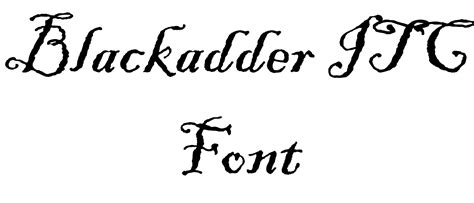
← back to family page. Itc blackadder is the work of british designer bob anderton, an eerie transformation of. Web individual styles 1 styles. Web about itc blackadder font family. Use the controls below to customize your text string and its. Itc blackadder is the work of british designer bob anderton, an eerie transformation of.
Itc blackadder is the work of british designer bob anderton, an eerie transformation of. Itc blackadder is the work of british designer bob anderton, an eerie transformation of. Use the controls below to customize your text string and its. Web individual styles 1 styles. Web about itc blackadder font family. ← back to family page. Itc blackadder is the work of british designer bob anderton, an eerie transformation of.